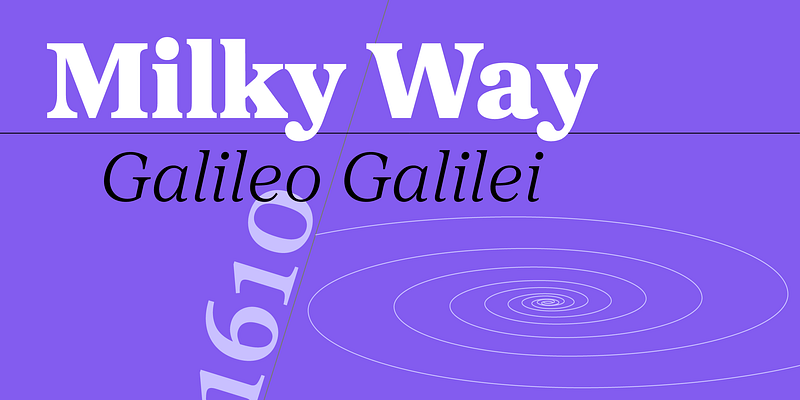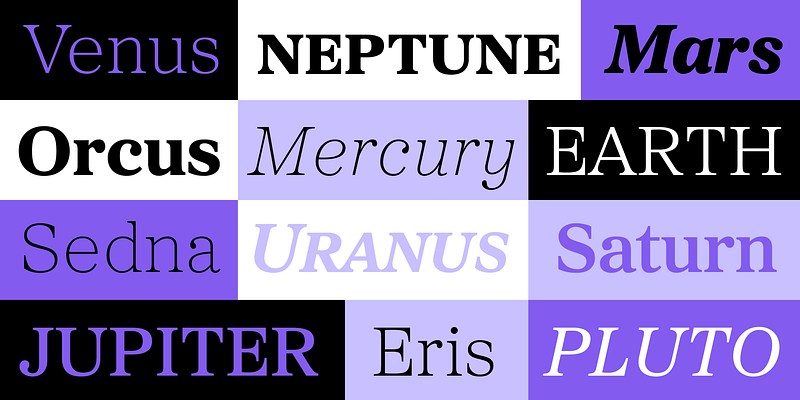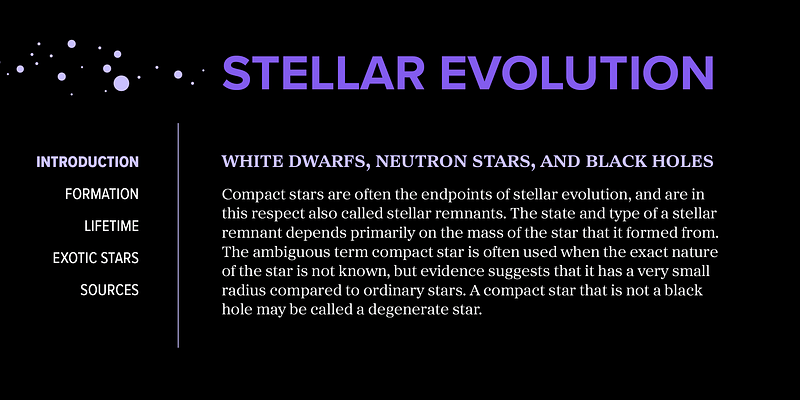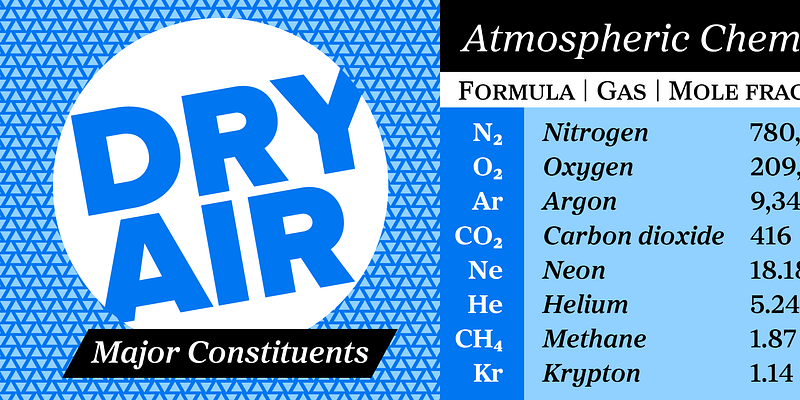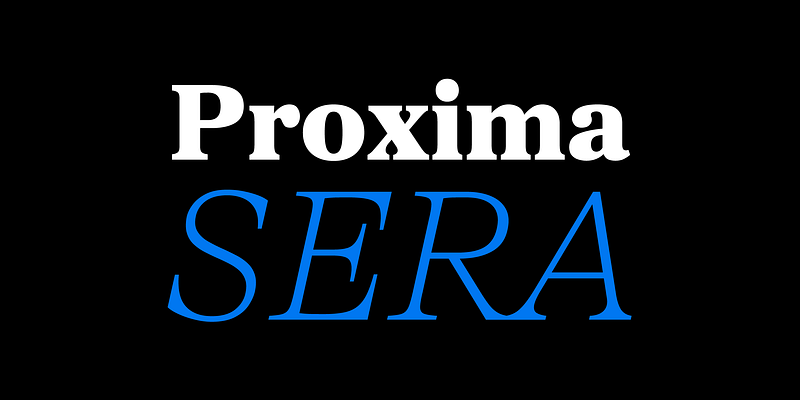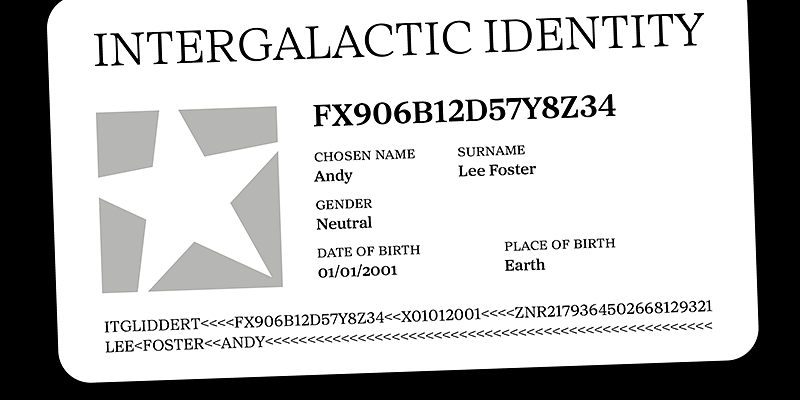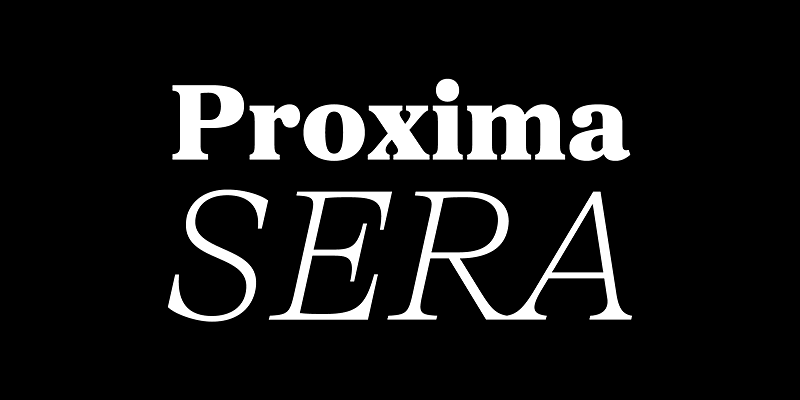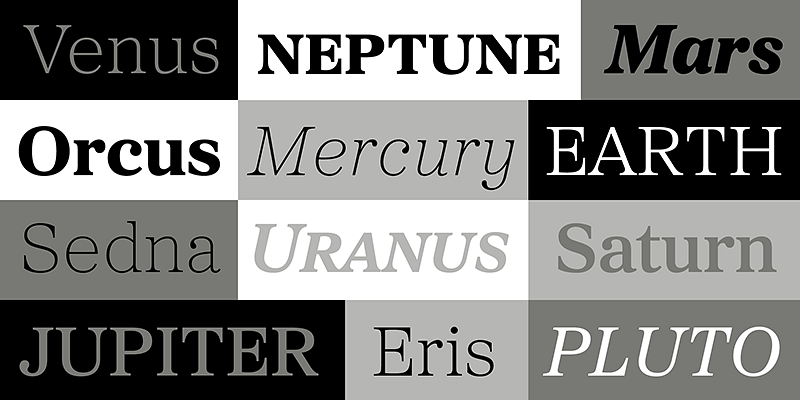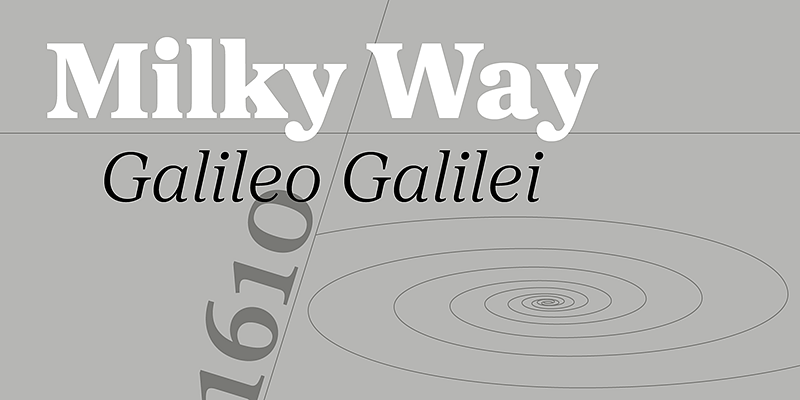
Proxima Sera (2022) answers the question that designers and typographers have asked for more than fifteen years — what serif typeface should I pair with Proxima Nova? Proxima Sera is a hybrid design, combining characteristics of old style and modern serif typefaces into something new that is clean and highly readable. While its proportions and range of weights are designed to harmonize with Proxima Nova, it stands alone just as well. Its even color and large x-height make it a logical choice for text settings, but Proxima Sera still has enough warmth for display use — especially Thin and Black. Try those in headlines, posters, or anywhere else you need to bring some fresh personality.